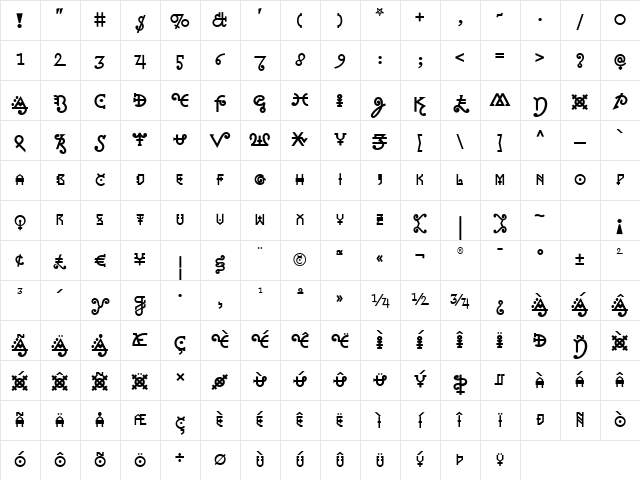
Lesser Arcana NF Regular
Foundry: Nick's Fonts
Designer: Nick Curtis
Design Context for Lesser Arcana NF
Lesser Arcana NF is a composed and adaptable typeface that performs quietly and consistently across a wide range of design contexts.